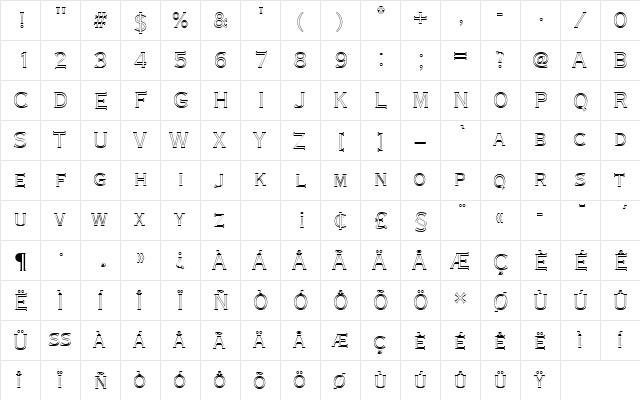
CopperplateTLigConOu1 Regular
Design Context for CopperplateTLigConOu1 Typeface
CopperplateTLigConOu1 is a composed and adaptable typeface that performs quietly and consistently across a wide range of design contexts.